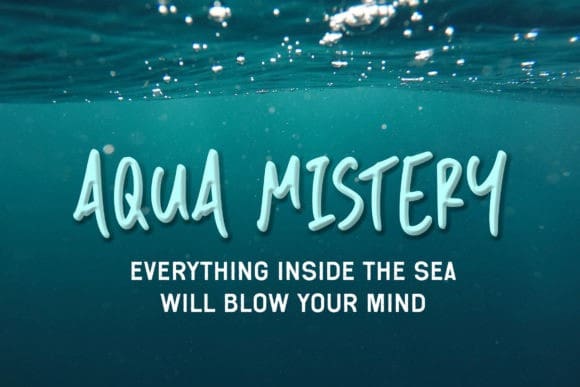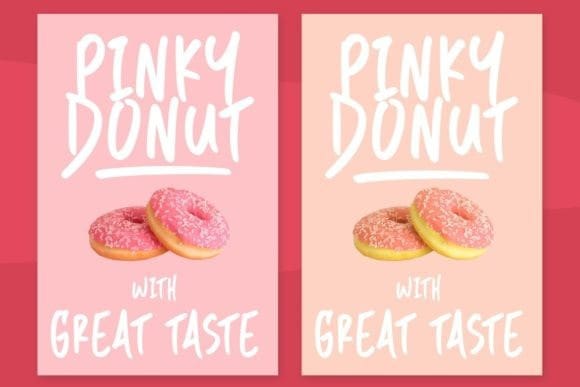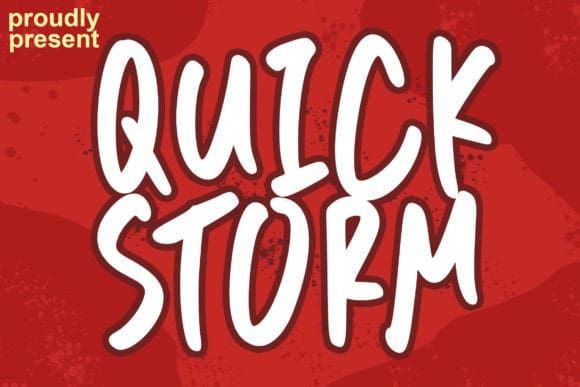
Quick Storm Font
Quick Storm Font is a cool script font featuring charming, playful characters that seem to dance along the baseline. Add this font to your most creative ideas, and notice how it makes them stand out!